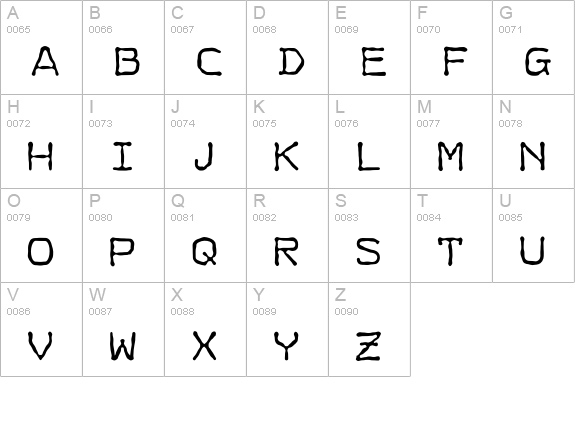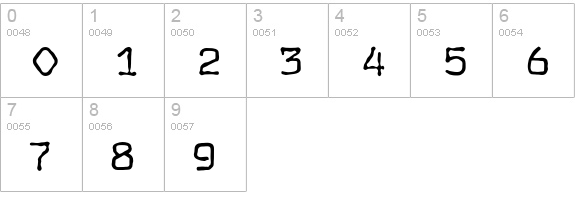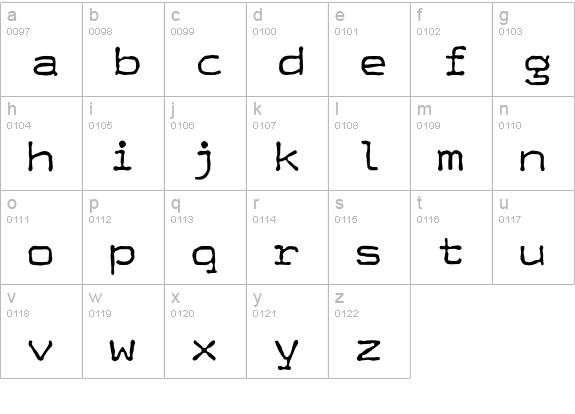
HardCase-Bad Font Details
Introducing HardCase-Bad font, a powerful and edgy typeface that adds a touch of rebelliousness to any design project. With its sharp angles and bold lines, this font exudes confidence and strength, making it perfect for projects that demand attention. But what sets HardCase-Bad font apart from the rest is that it is not only visually striking, but also freely available to download at FontsMarket.com. Yes, that's right, you can get your hands on this stunning font without spending a dime! Whether you're working on a poster, logo, or website design, HardCase-Bad font will make a lasting impression. Its unique and unconventional style will instantly grab the viewer's attention, leaving a lasting impact. Furthermore, the versatility of HardCase-Bad font allows it to be used in a wide range of design applications. Its rugged appearance makes it perfect for projects that require a touch of grit and attitude, while its clean lines and legibility make it suitable for more refined and elegant designs. With its freely available download, HardCase-Bad font offers a fantastic opportunity for designers and creatives to enhance their work without breaking the bank. Don't miss out on this chance to elevate your designs with a font that combines style, strength, and affordability. Download HardCase-Bad font now at FontsMarket.com and unleash your creativity with this exceptional typeface. Get ready to make a bold statement and captivate your audience with the power of HardCase-Bad font.